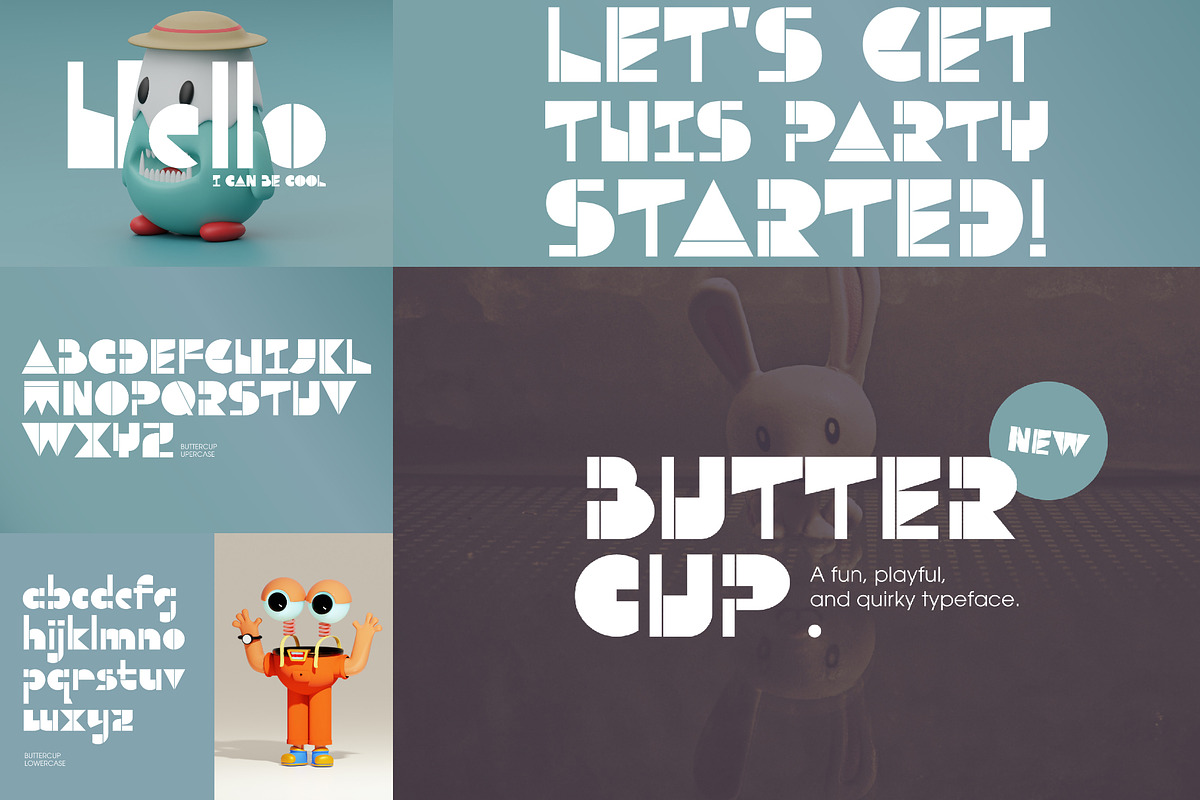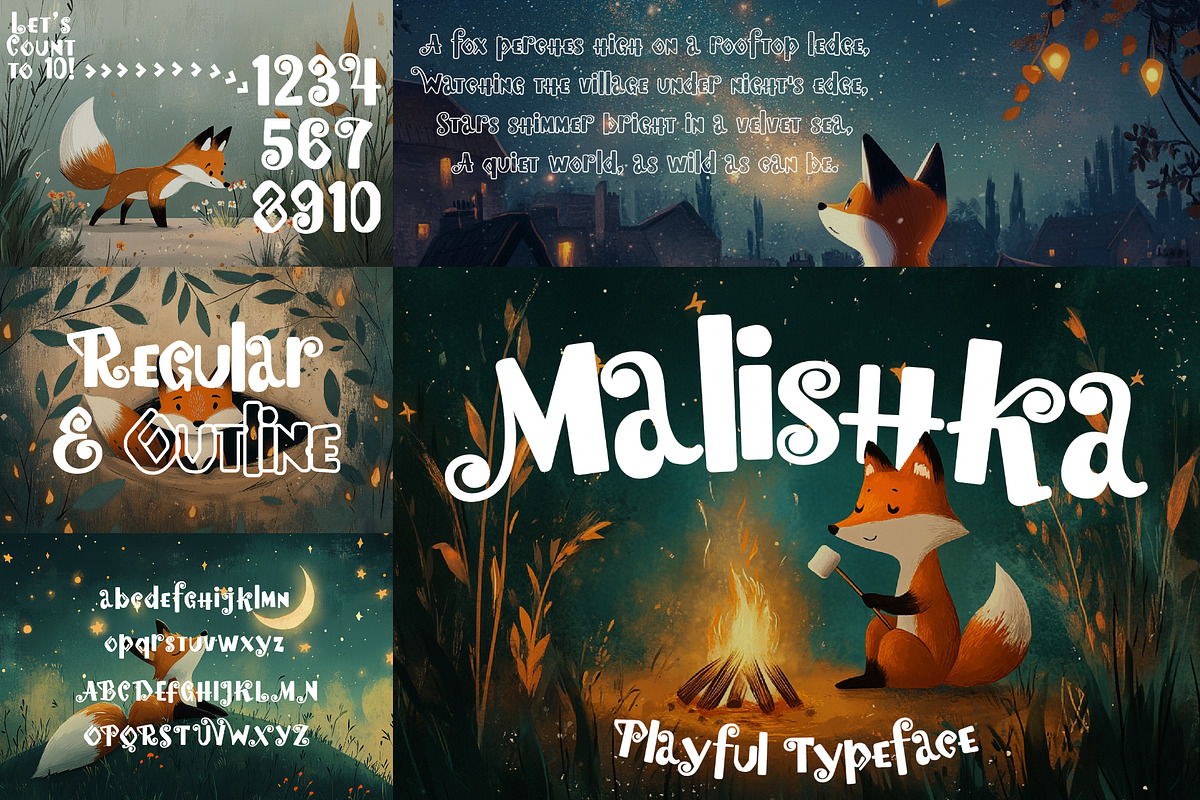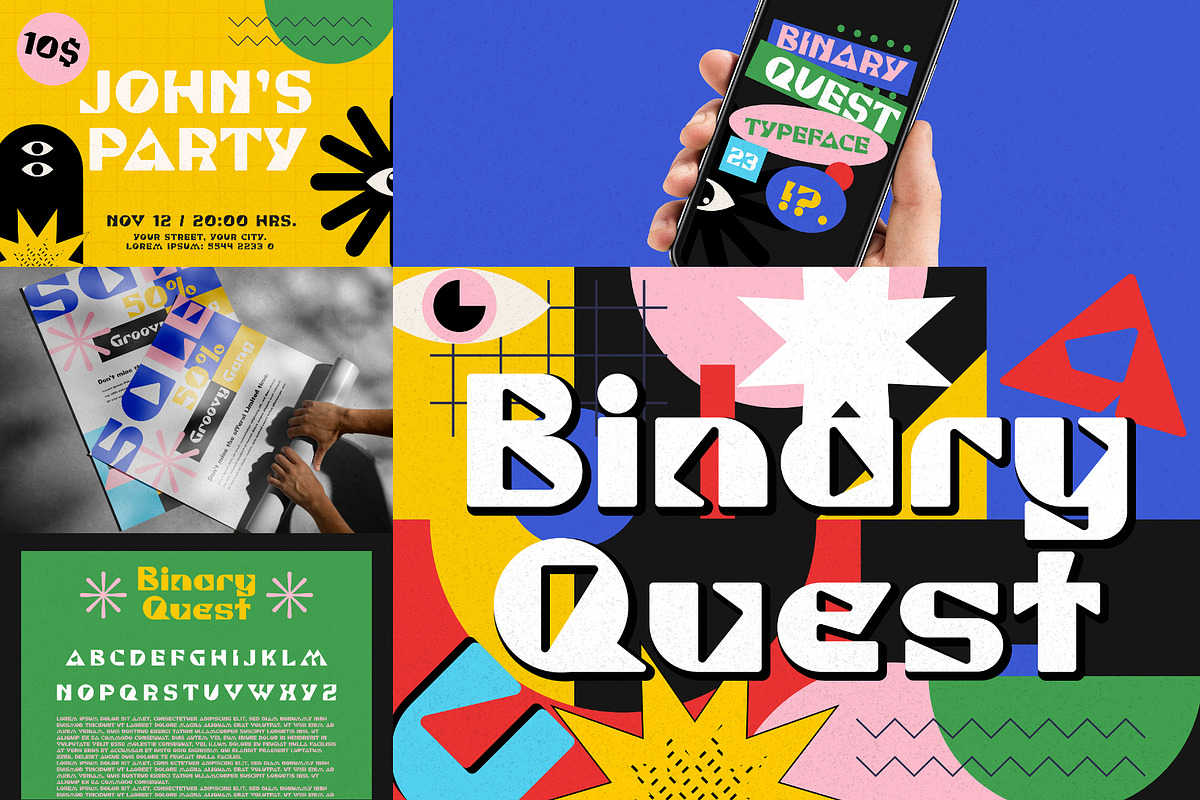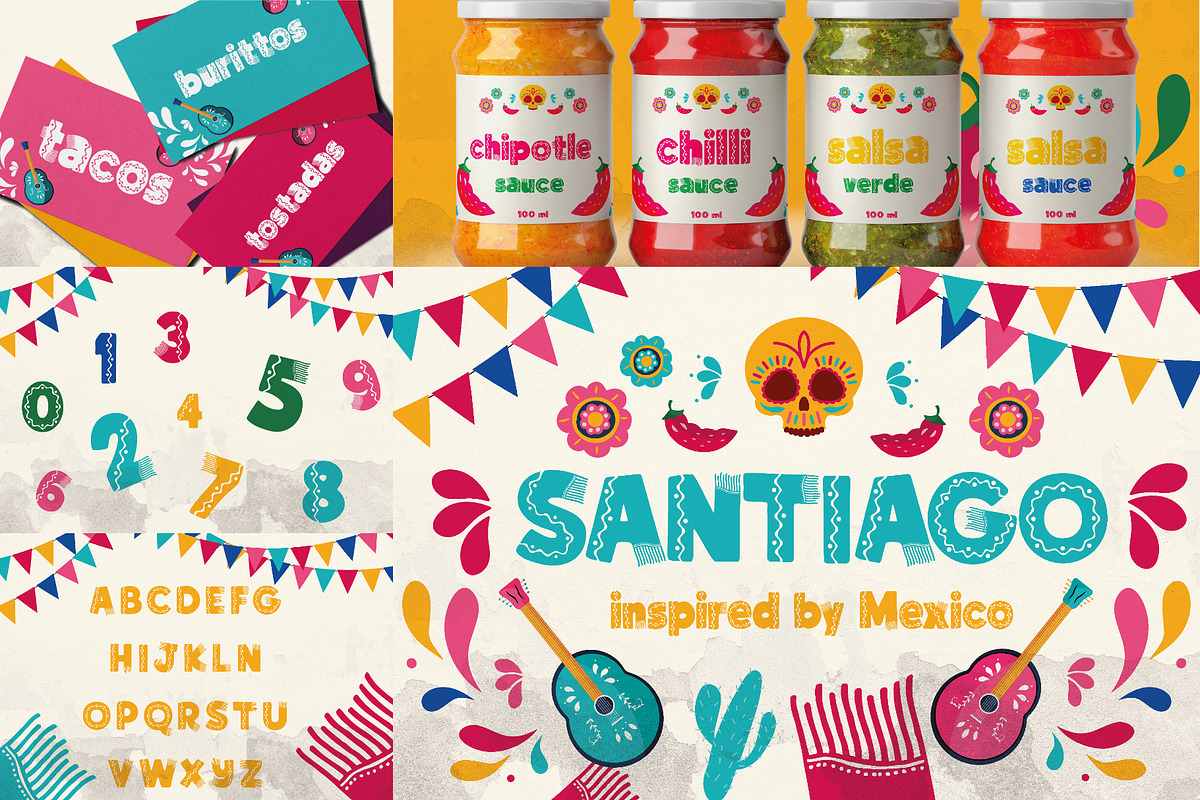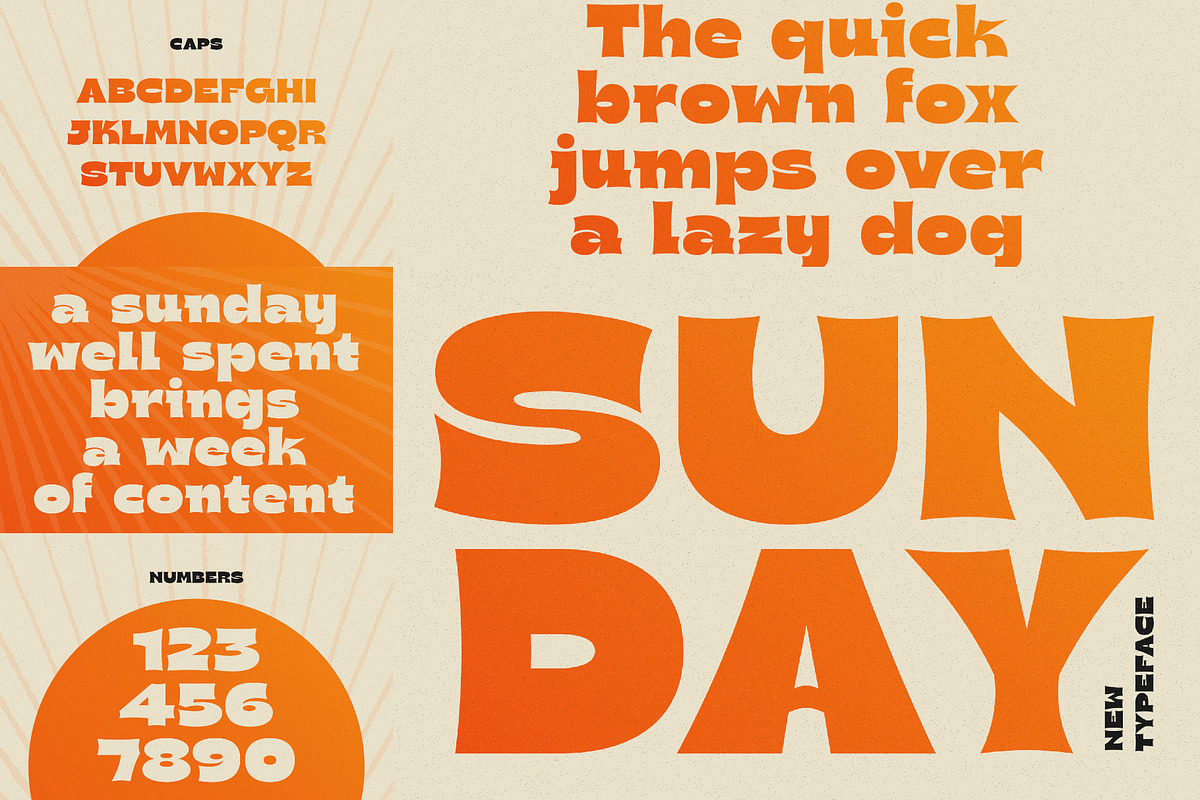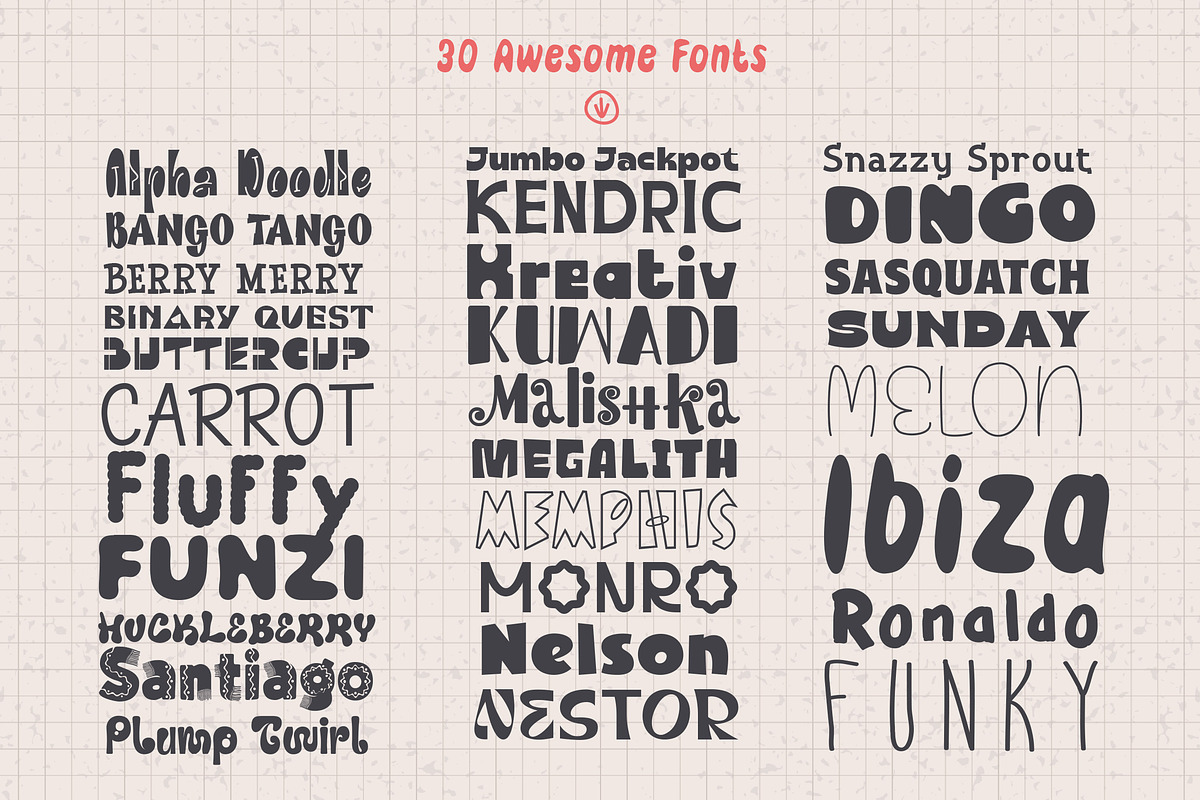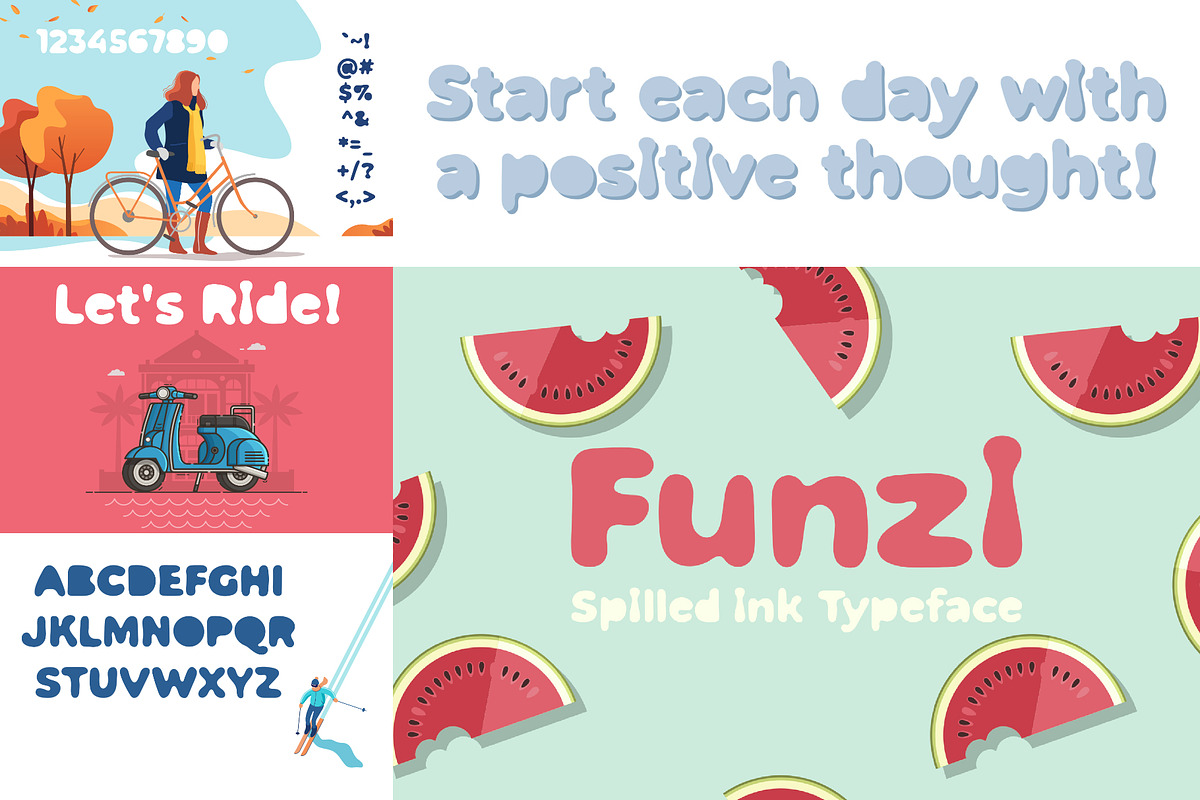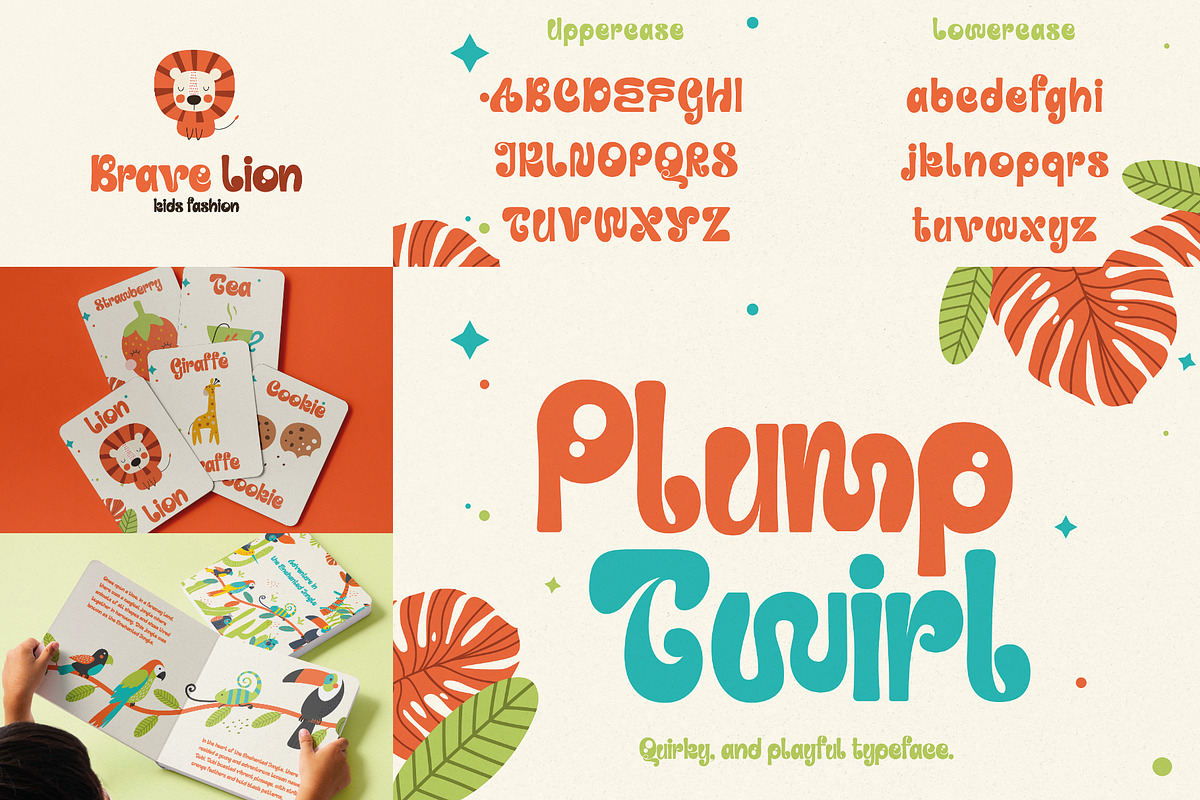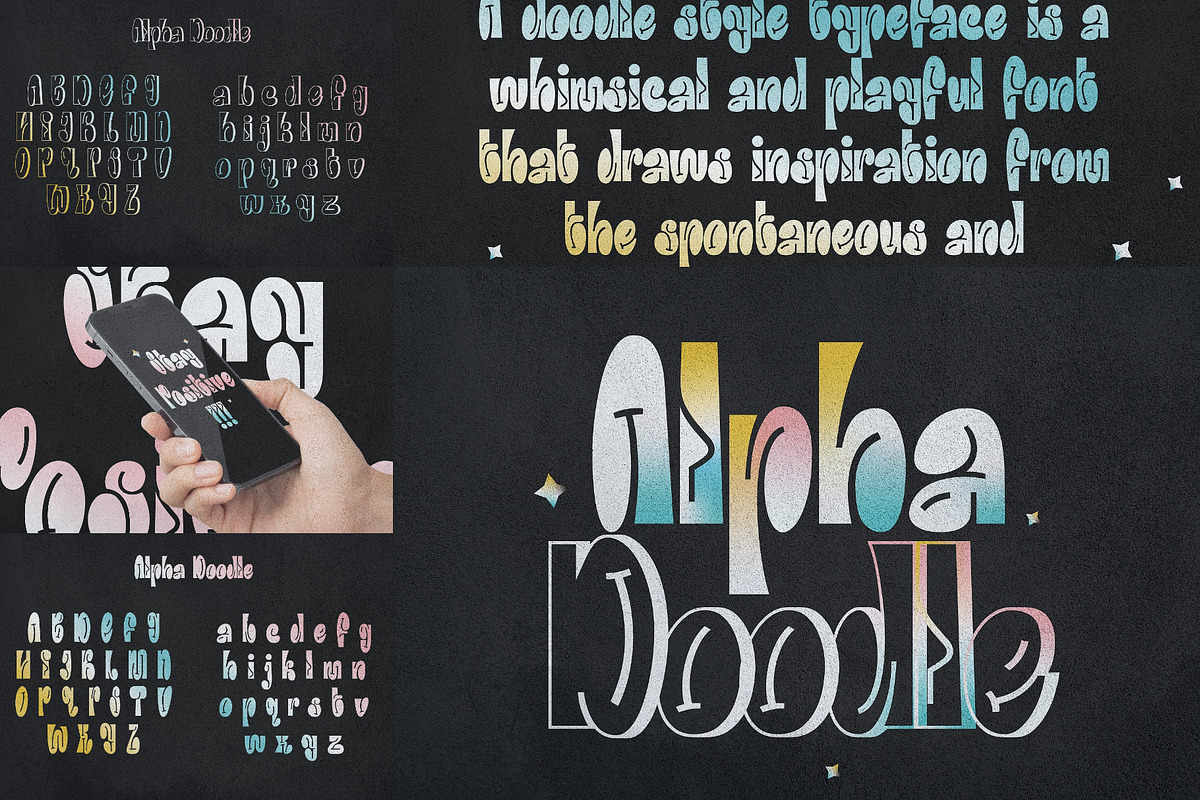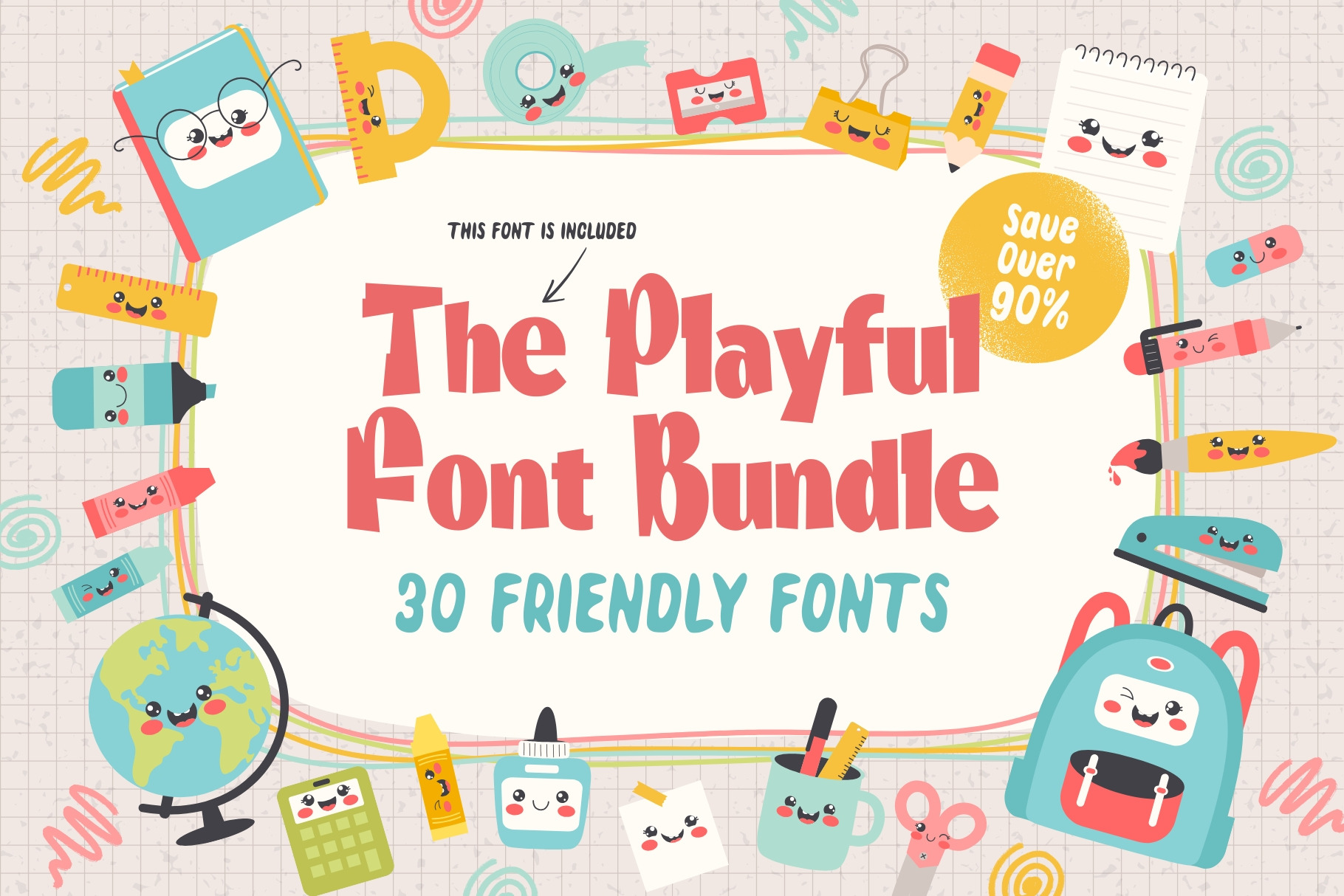
The Playful Font Bundle - 30 Fonts!
Get ready to add a splash of fun, charm, and creativity to your designs with The Playful Font Bundle! This delightful collection includes 30 friendly, cute, and kid-friendly fonts. Each one crafted to bring joy, warmth, and personality to your projects.
Whether you're designing for kids’ books, school projects, posters, branding, invitations, apparel, or social media, this bundle has the perfect font for every occasion. From bubbly scripts to quirky serifs and cheerful display fonts, every typeface is designed to make your creations stand out!
Why You’ll Love This Bundle:
- 30 Adorable, High-Quality Fonts – Playful, fun, and full of character!
- Perfect for Any Project – Ideal for teachers, parents, crafters, and designers.